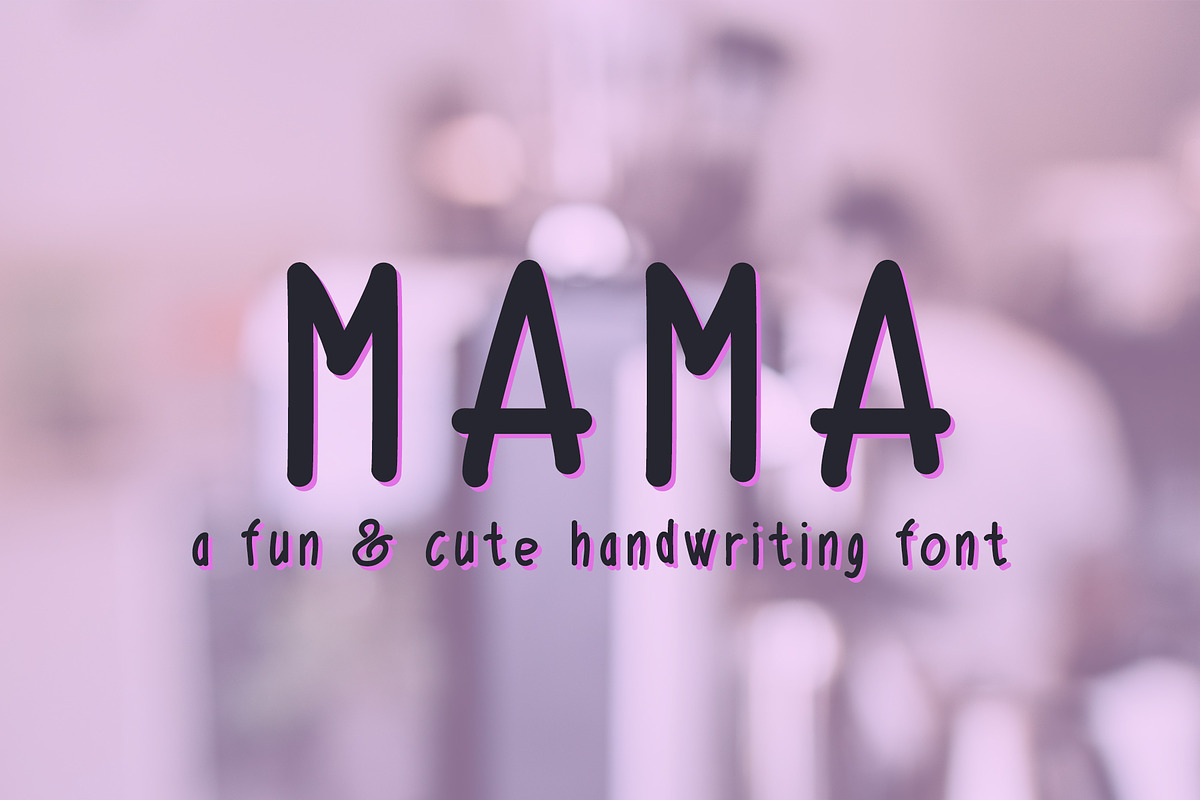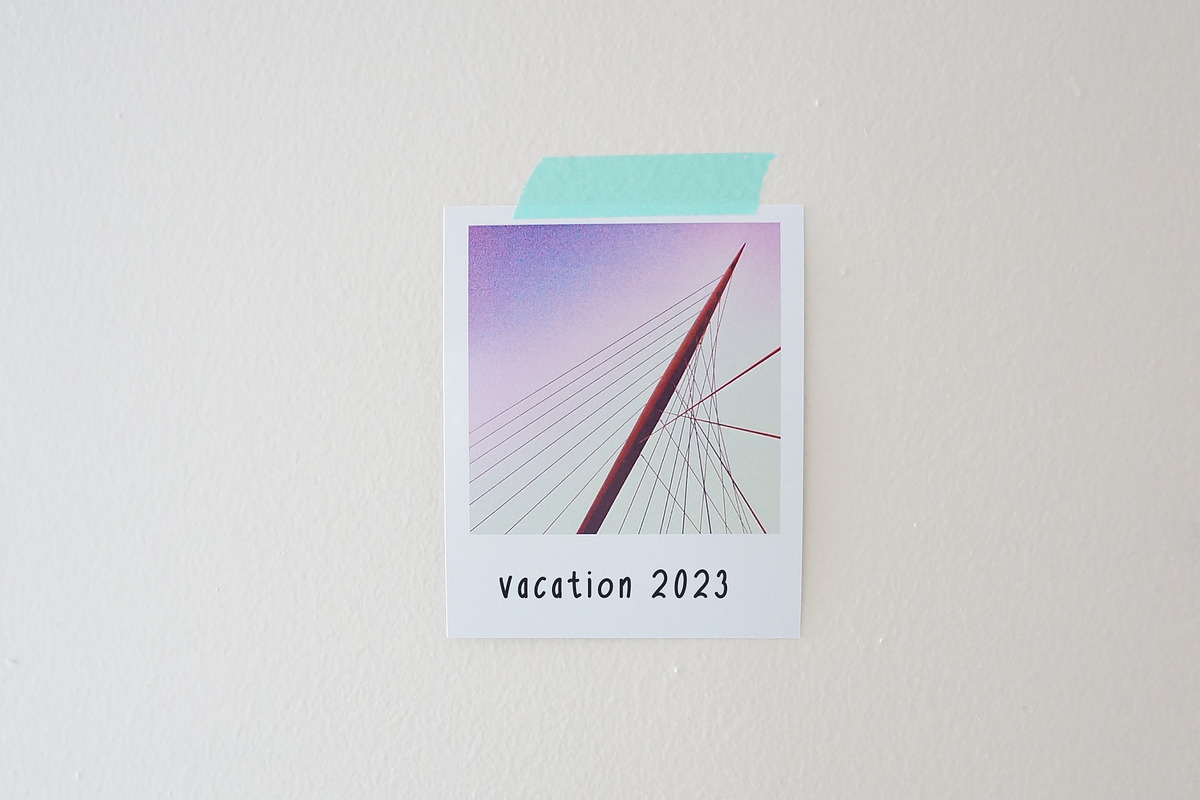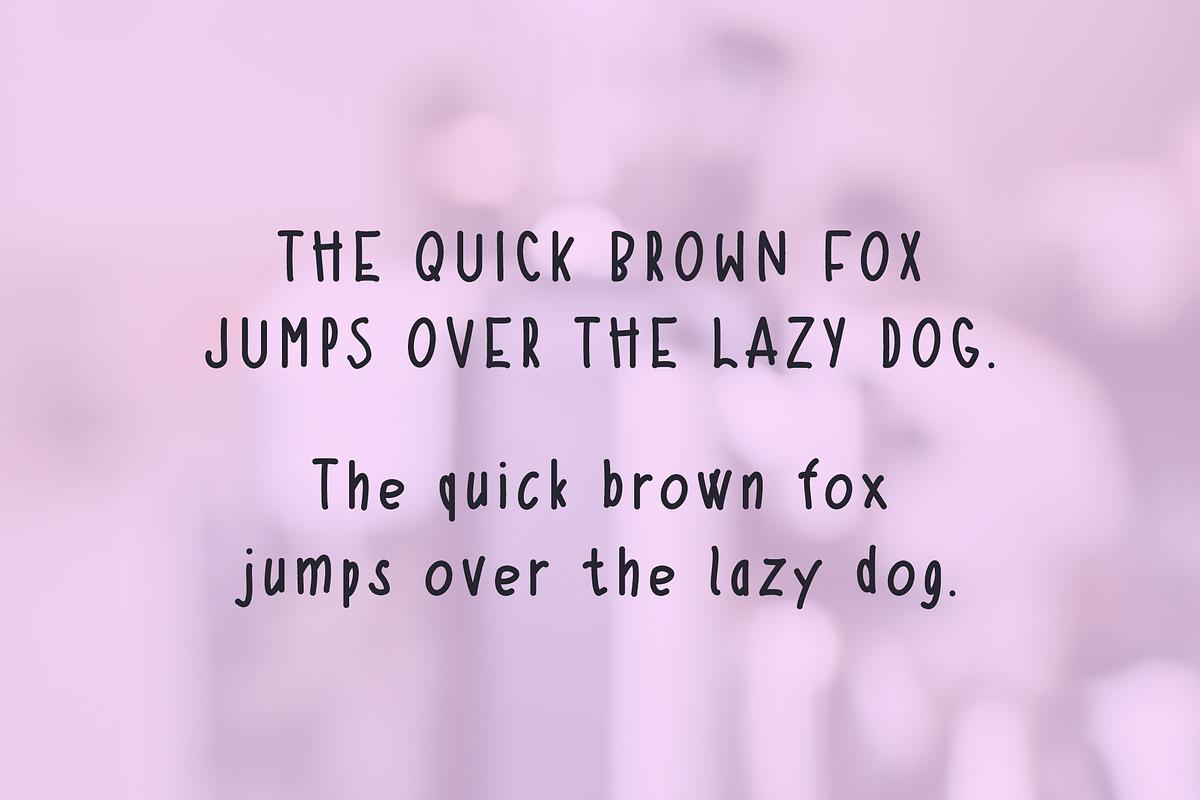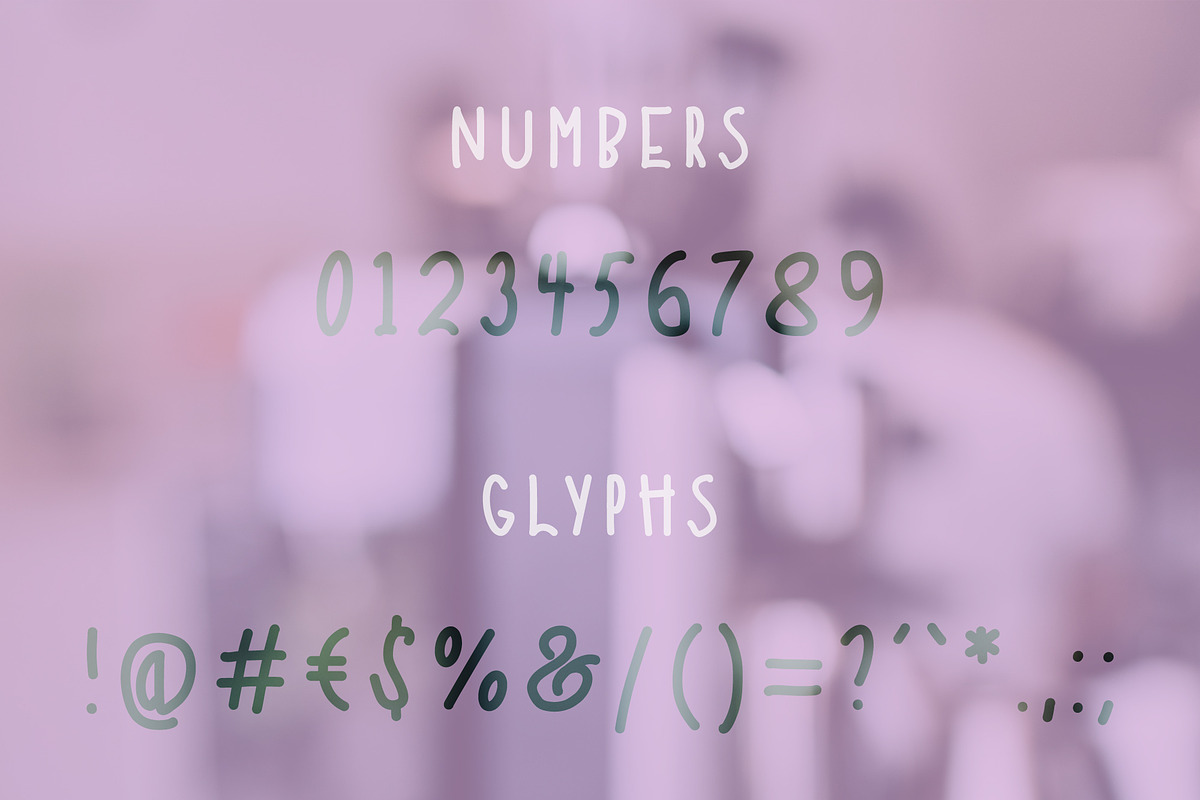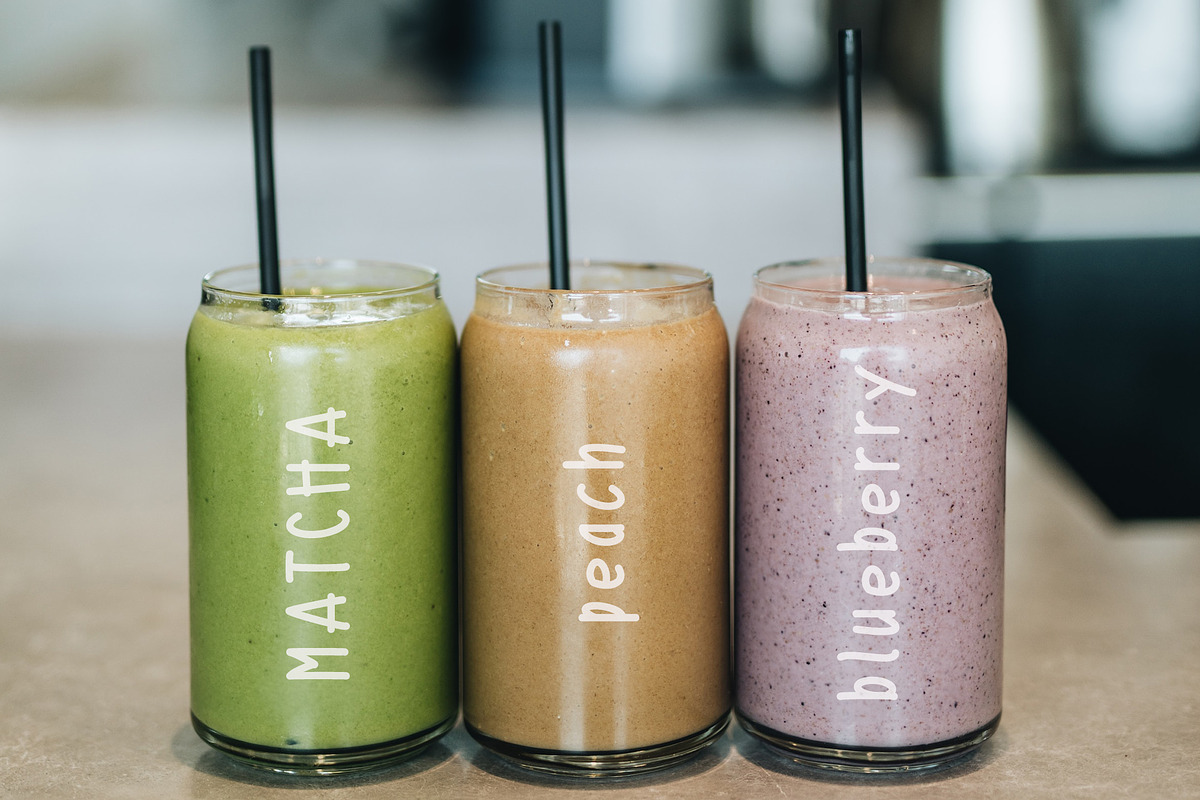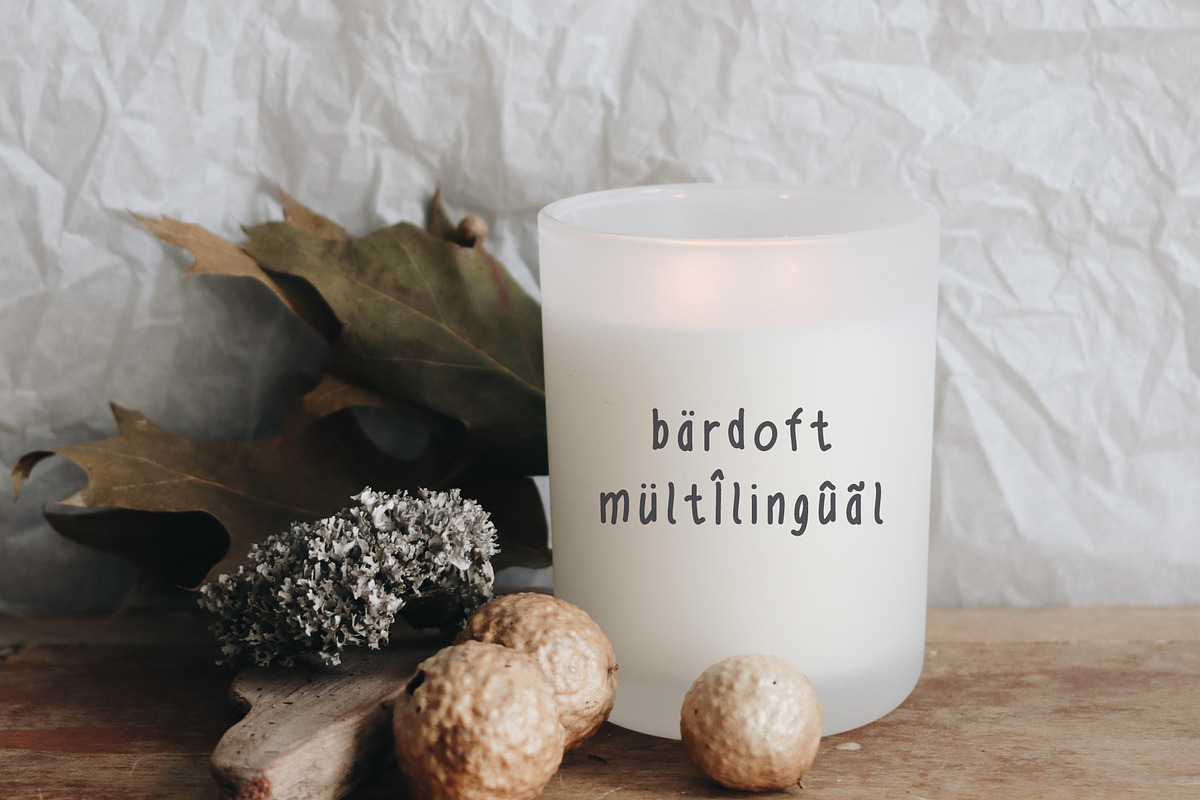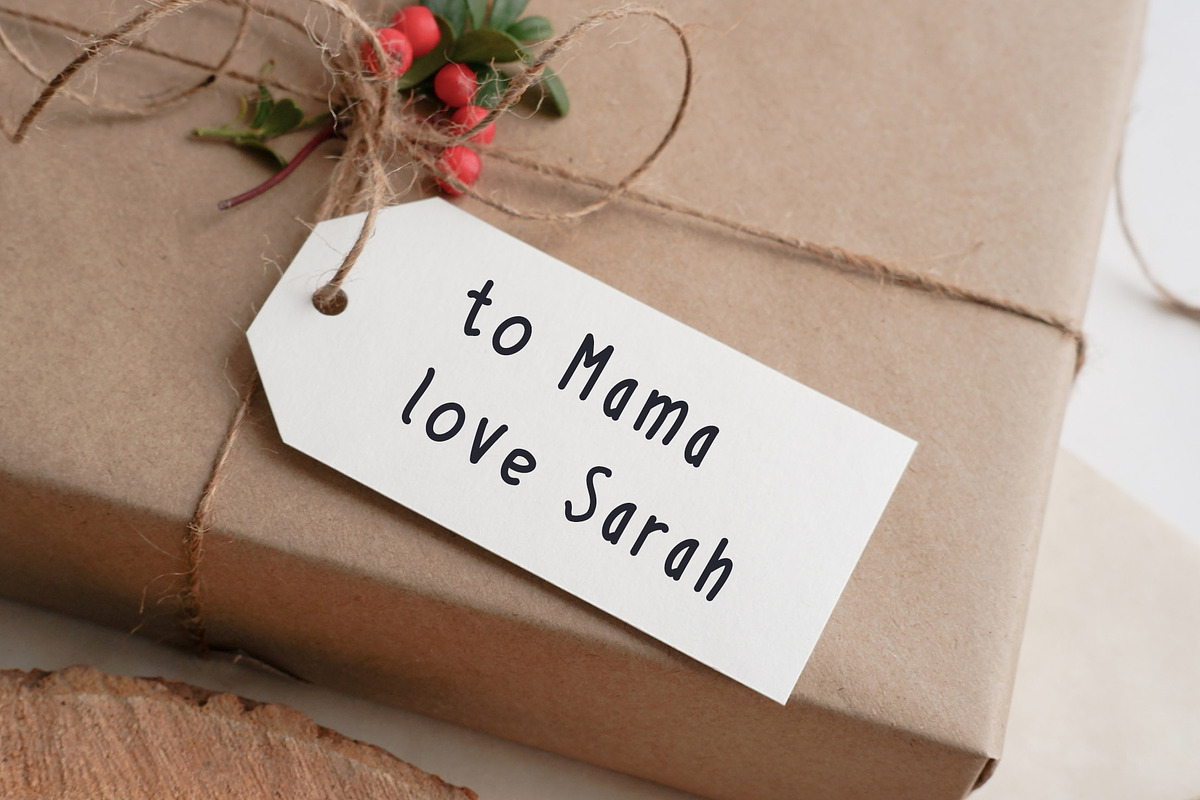
Mama Cute Handwriting Font
Introducing our beautiful Handwritten Script Font we call Mama - perfect for adding a touch of elegance to your designs! This modern script font features whimsical, hand-drawn lettering that's both stylish and fun.
Use it for branding, logos, invitations, social media graphics, and more. With our unique handwritten font, you'll stand out from the crowd and make a lasting impression.
204 Handwritten Letters, Numbers & Symbols including: å ä ö ø æ œ é † µ ü ı ß ∂ ƒ ¸ ˛ ÷ ç ‹ › ‘ ’ ‚ … – ’ *